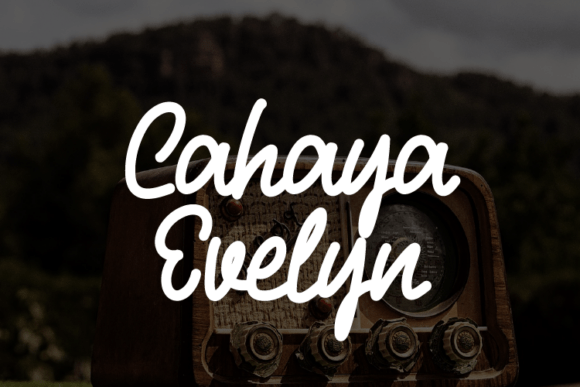
Cahaya Evelyn Font: A Timeless Handwritten Script for Warm and Nostalgic Designs
In the world of typography, few fonts evoke a sense of warm nostalgia and vintage comfort like Cahaya Evelyn. This charming and fluid handwritten script is characterized by its monolinear strokes and rhythmic, upright flow, capturing the effortless grace of mid-century penmanship. With its friendly curves and clean connections, Cahaya Evelyn is an exceptional choice for designers and crafters looking to add a touch of authenticity and humanity to their projects.
The Essence of Cahaya Evelyn
Cahaya Evelyn is more than just a font – it’s a design element that can instantly transport your audience to a bygone era. Its monolinear strokes and rhythmic flow give it a sense of fluidity and movement, as if the words are dancing across the page. The font’s upright stance and clean connections add a sense of elegance and sophistication, making it perfect for a wide range of design applications.
Perfect for Heritage Branding and Retro-Inspired Designs
Cahaya Evelyn is an ideal choice for heritage branding and retro-inspired lifestyle labels. Its vintage charm and nostalgic feel evoke a sense of warmth and comfort, making it perfect for brands that want to convey a sense of tradition and heritage. Whether you’re designing a logo, packaging, or advertising materials, Cahaya Evelyn adds a touch of authenticity and character that feels both timeless and welcoming.
Cozy Cafe Signage and Social Media Storytelling
But Cahaya Evelyn’s uses don’t stop there. Its friendly curves and clean connections make it an excellent choice for cozy cafe signage, adding a touch of warmth and personality to any establishment. The font is also perfect for social media storytelling, where its heartfelt and authentic feel can help you connect with your audience on a deeper level. Whether you’re designing a social media post, a blog article, or a website, Cahaya Evelyn is sure to add a touch of humanity and personality to your content.
Designing with Cahaya Evelyn
So, how can you make the most of Cahaya Evelyn in your designs? Here are a few tips:
- Use Cahaya Evelyn to add a touch of warmth and personality to your designs. Its friendly curves and clean connections make it perfect for creating a sense of comfort and approachability.
- Experiment with different colors and textures to enhance the font’s vintage charm. Earthy tones, rich wood textures, and distressed finishes can all help to create a sense of nostalgia and heritage.
- Don’t be afraid to mix and match Cahaya Evelyn with other design elements. The font’s versatility and elegance make it a great choice for pairing with illustrations, patterns, and other typography.
Cahaya Evelyn in Action
So, what does Cahaya Evelyn look like in action? Here are a few examples of how the font can be used in different design applications:
- Boutique Vintage Shop: Use Cahaya Evelyn to create a sign or logo for a vintage clothing store or antique shop. The font’s nostalgic feel and elegant curves will instantly evoke a sense of heritage and tradition.
- Retro-Inspired Label: Create a label or packaging design for a food or beverage product using Cahaya Evelyn. The font’s vintage charm and friendly curves will add a touch of warmth and personality to your product.
- Cozy Cafe: Use Cahaya Evelyn to create a menu or signage for a cozy cafe or bakery. The font’s warm and inviting feel will make your customers feel right at home.
Cahaya Evelyn is a truly unique and special font that can add a touch of warmth and personality to any design. Its vintage charm, elegant curves, and friendly feel make it perfect for a wide range of design applications, from heritage branding and retro-inspired labels to cozy cafe signage and social media storytelling. Whether you’re a designer, crafter, or DIY enthusiast, Cahaya Evelyn is sure to become a favorite in your toolkit.